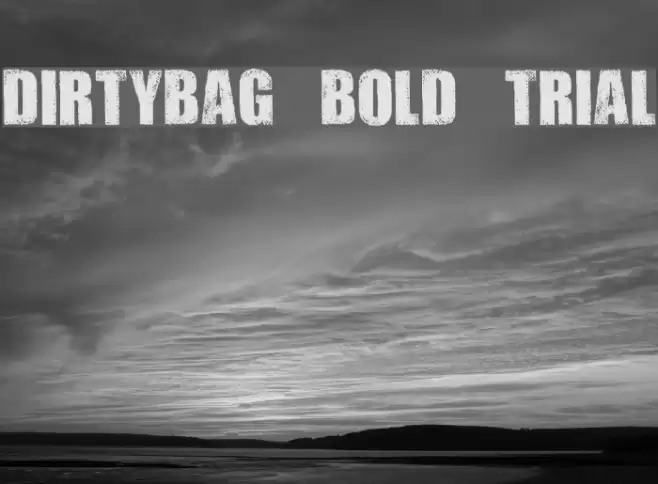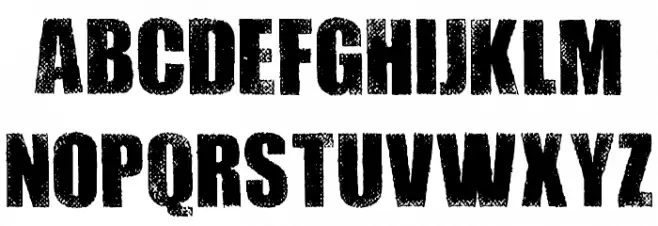
DIRTYBAG BOLD TRIAL Font
DIRTYBAG BOLD TRIAL Description
This font features a bold, distressed style with a textured appearance that gives it a rugged and worn look. The uppercase letters are uniformly bold, with a rough, grunge-like texture that suggests a vintage or industrial aesthetic. The characters are well-defined, yet the distressed effect adds a sense of age and character, making it ideal for designs that require a bold statement with a touch of edginess. The font's heavy weight and textured surface create a striking visual impact, suitable for attention-grabbing headlines or artistic projects.
A bold, distressed font with a rugged, textured appearance from Uncategorized fonts.
- Proposed Projects: Ideal for posters, album covers, branding for edgy or vintage-themed products, and any design needing a bold, textured statement.
- Overall Style: Vintage